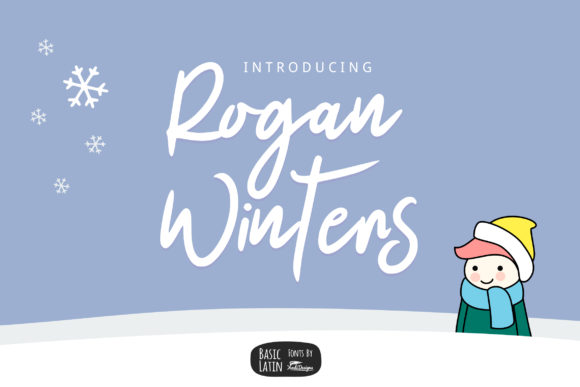
Rogan Winters Font
Welcome to the world of Rogan Winters, a captivating script font family that oozes elegance and originality. Crafted with meticulous attention to detail by YandiDesigns, Rogan Winters is a visual symphony that will add a touch of sophistication and playfulness to any project.
Step into a world where letters dance with grace, where each stroke tells a story, and where your words come alive with a captivating charm. Rogan Winters is not just a font; it's an expression of your creativity, a reflection of your unique style.
With its beautifully handwritten style, Rogan Winters effortlessly captures the essence of human touch, adding a personal touch to your designs. Whether you're a seasoned designer or just starting, Rogan Winters is the perfect companion for your creative journey.
Explore the endless possibilities of Rogan Winters. From logos that exude professionalism to wedding invitations that radiate romance, from album covers that speak to the soul to business cards that leave a lasting impression, Rogan Winters is the ultimate tool to make your ideas shine.
Unleash the magic of Rogan Winters on your clothing designs, magazine covers, posters, and more. Let your imagination run wild as you create designs that captivate and inspire. Rogan Winters is the perfect font for those who dare to be different, who embrace individuality and seek to create something truly extraordinary.
Don't settle for ordinary fonts. Embrace the beauty of Rogan Winters, and watch as your designs transform into masterpieces. Let your creativity soar, let your words dance, and let Rogan Winters be your guide into a world of endless possibilities.